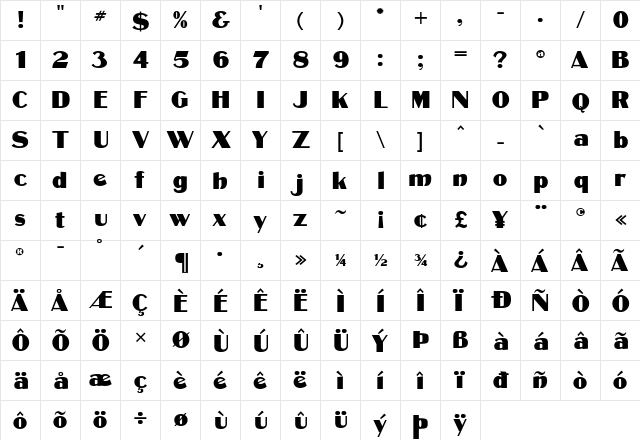
Cotrell CF ExtraBold Regular
| Foundry | Chuck's Fonts |
| Designer | Chuck Mountain |
Design Context for Cotrell CF ExtraBold Typeface
Cotrell CF ExtraBold takes a measured approach to typography — its balanced proportions and neutral character make it a reliable workhorse for both digital and print work. The heavy weight commands attention and anchors typographic hierarchies.